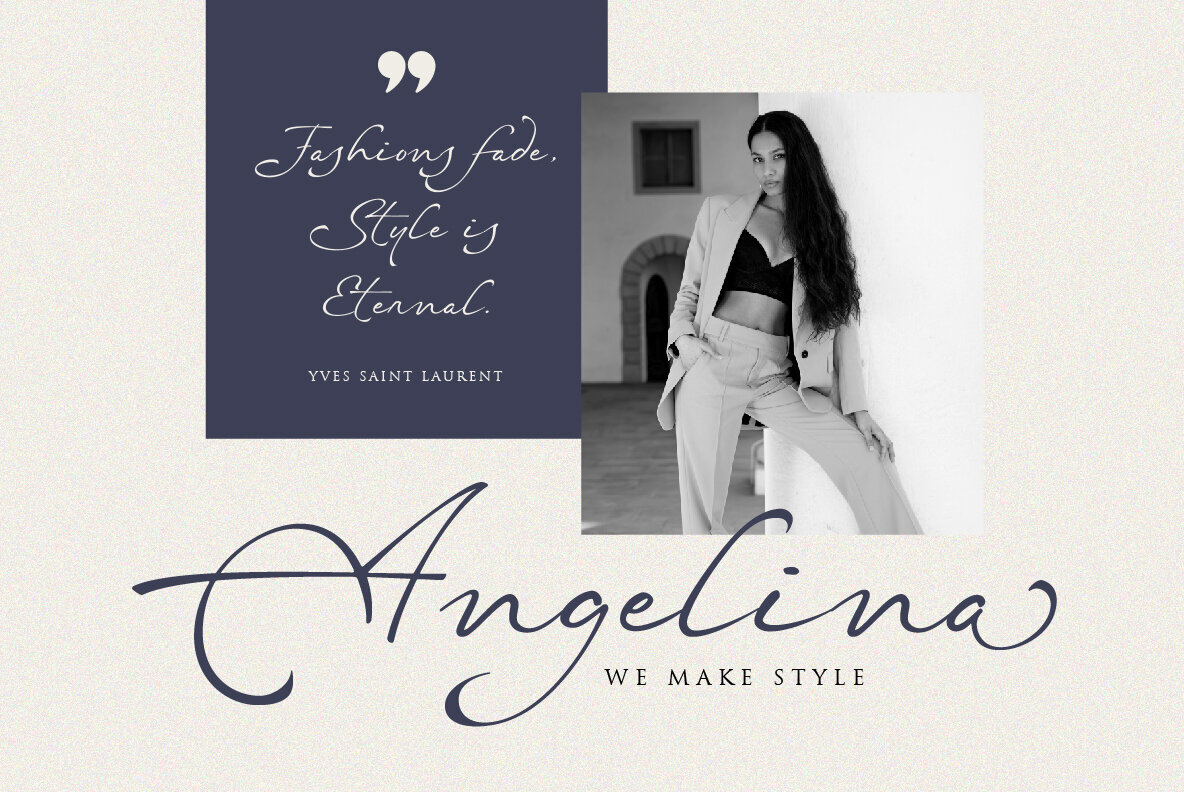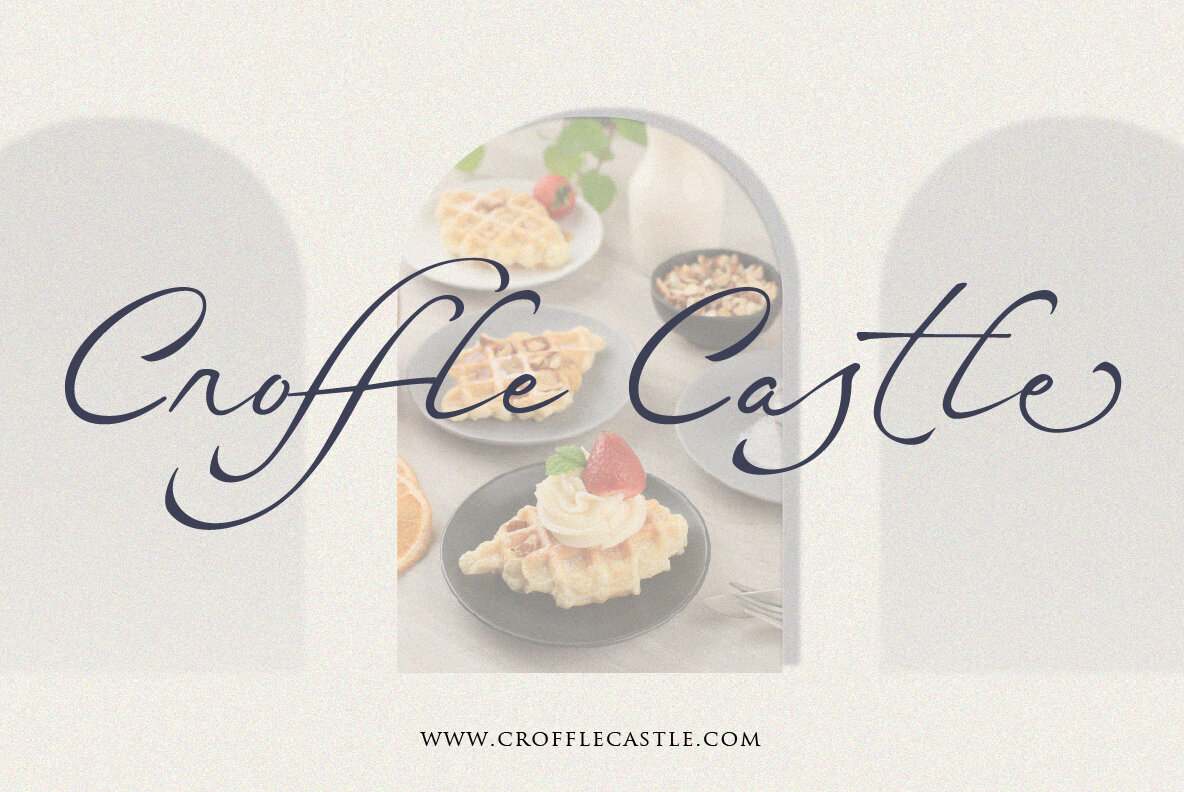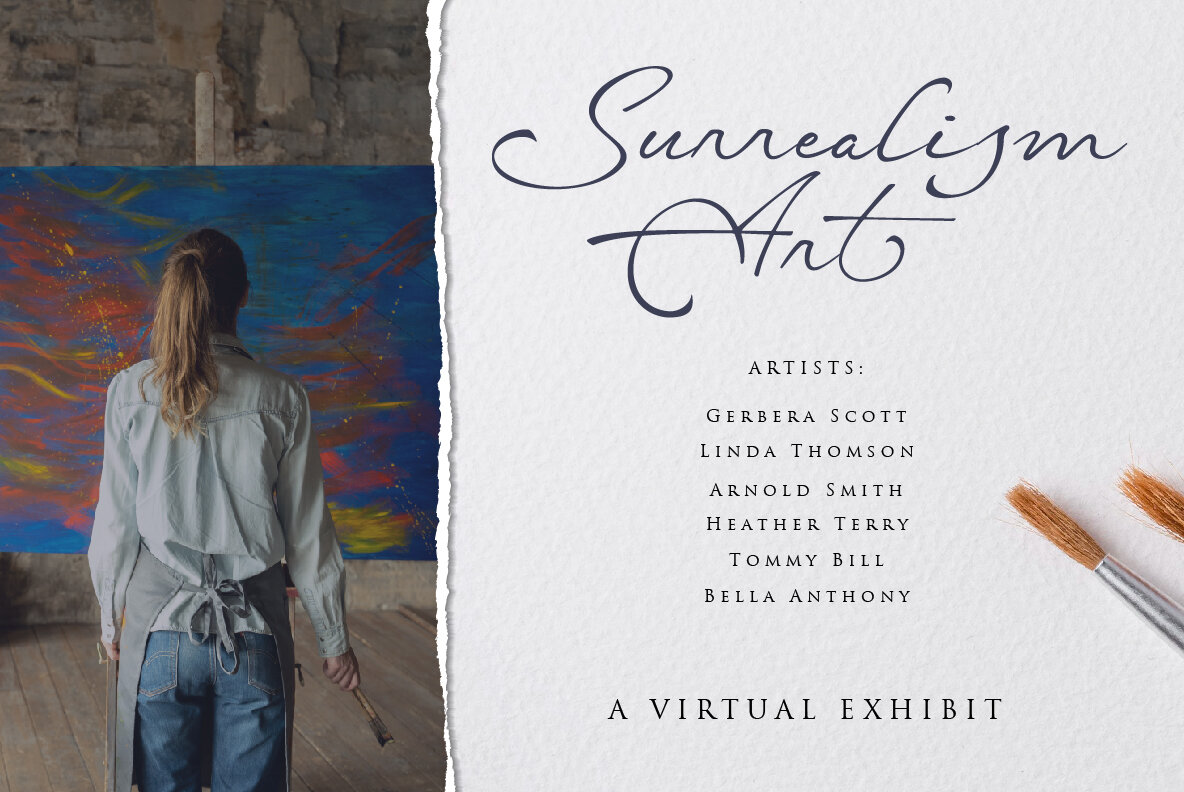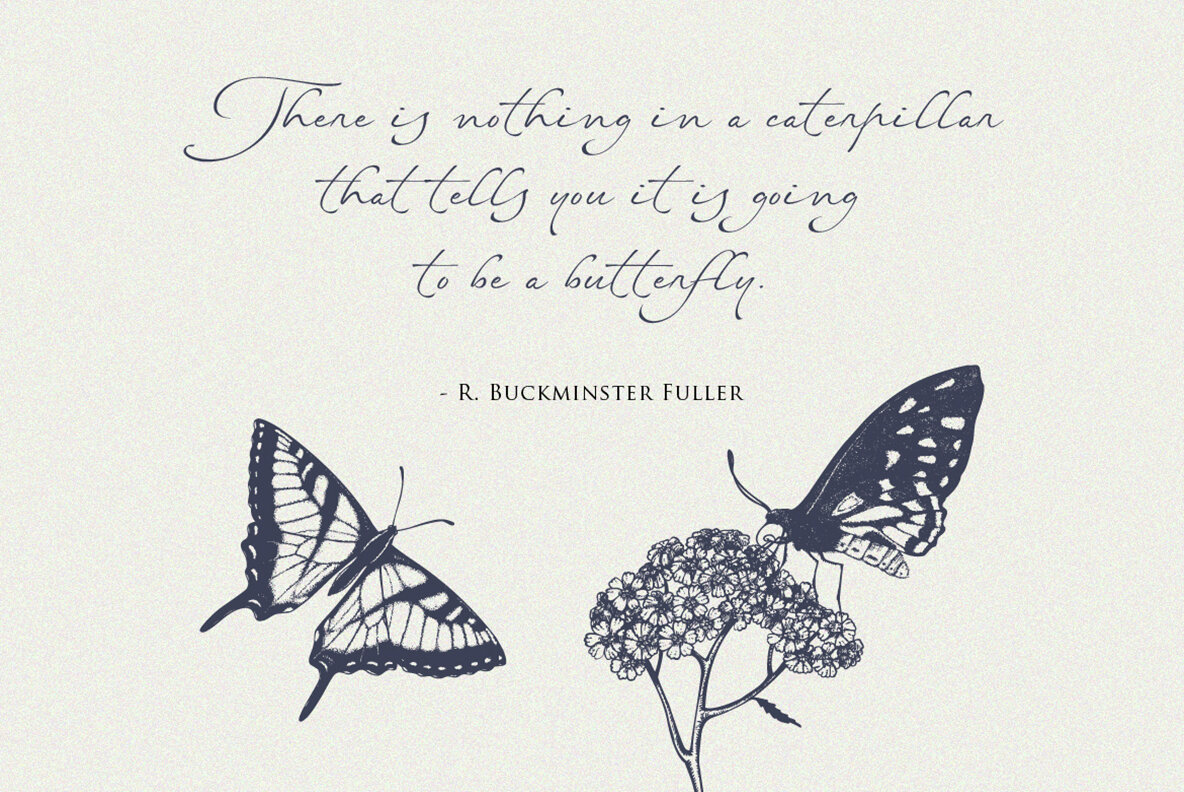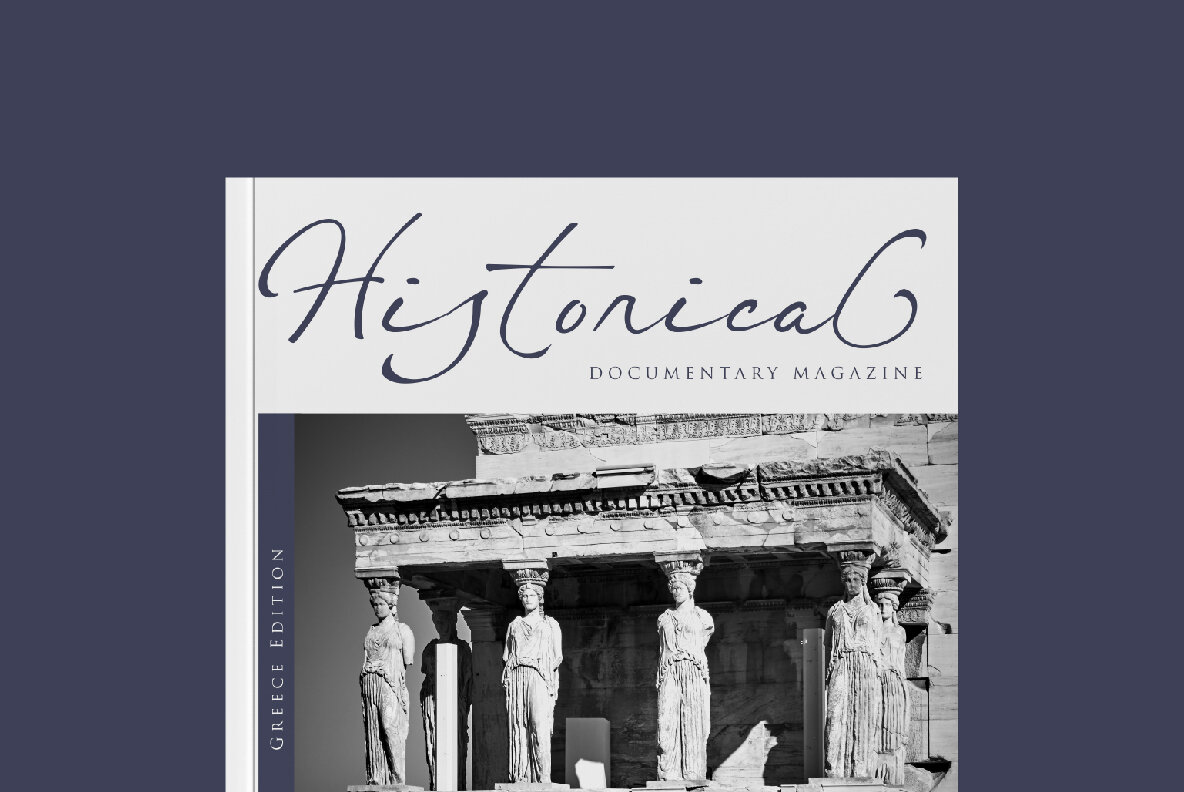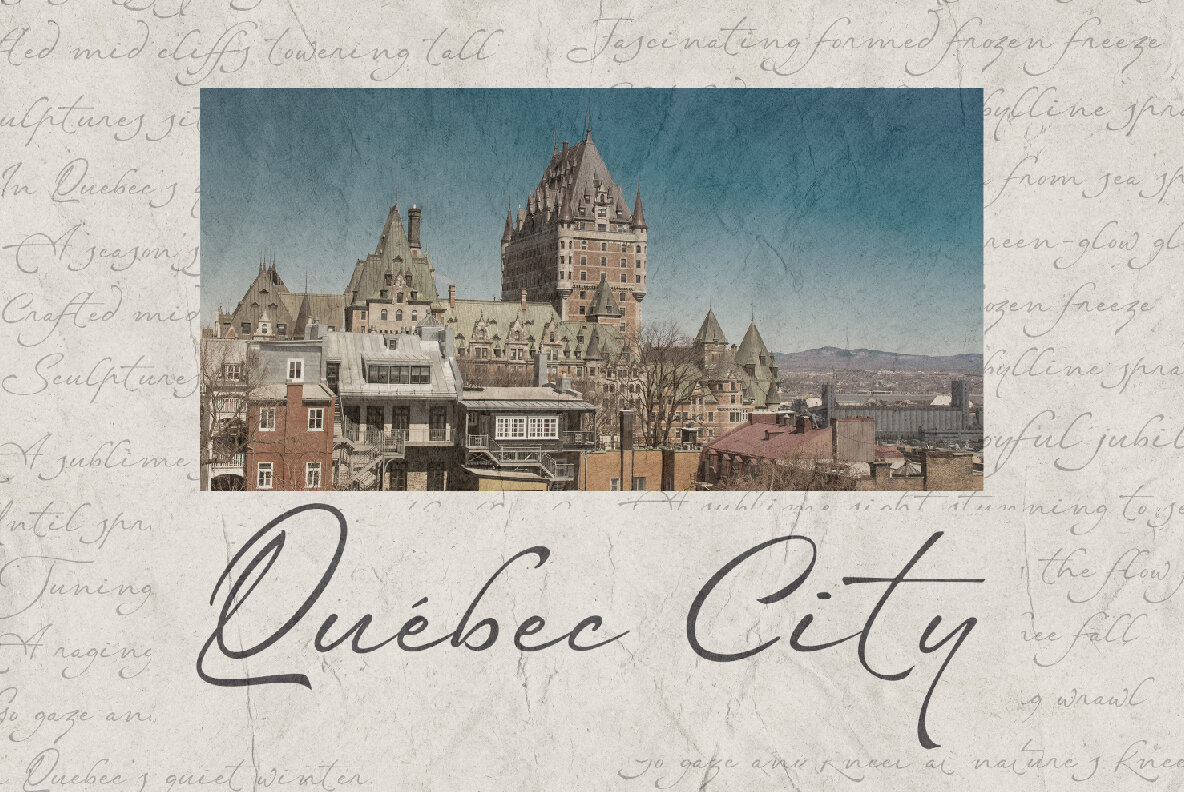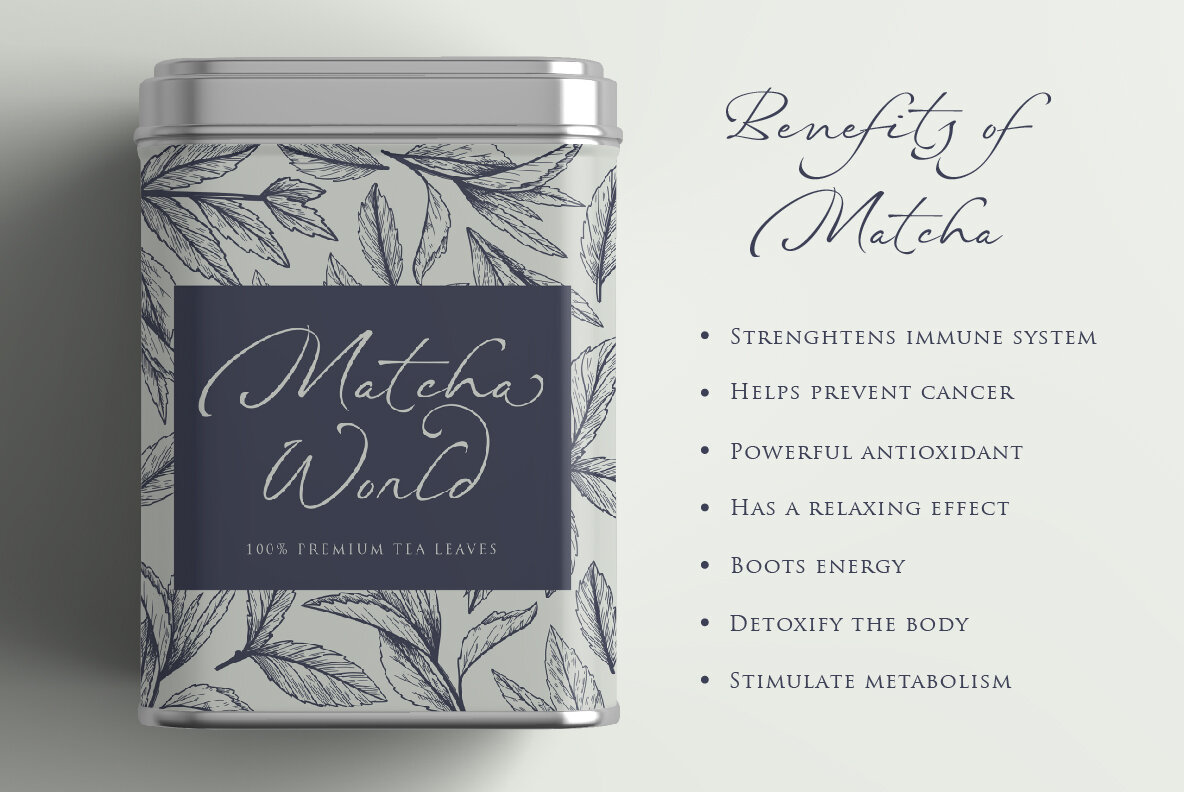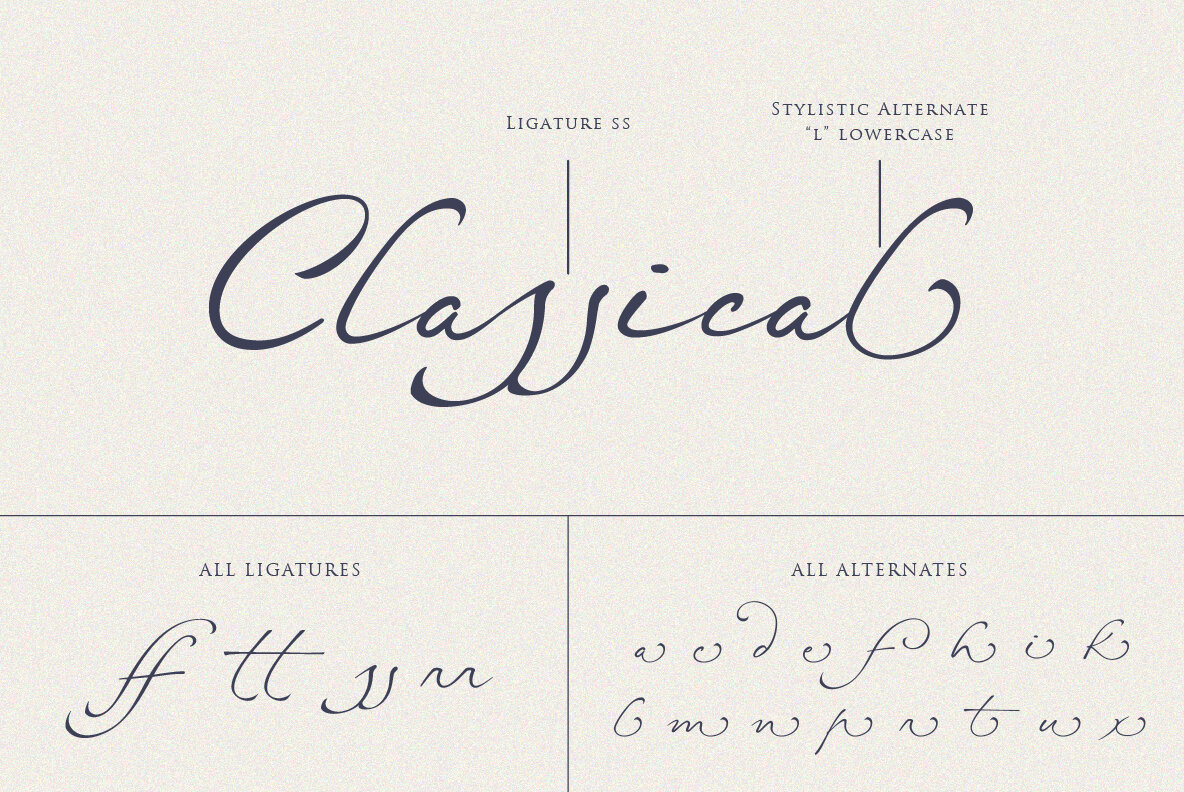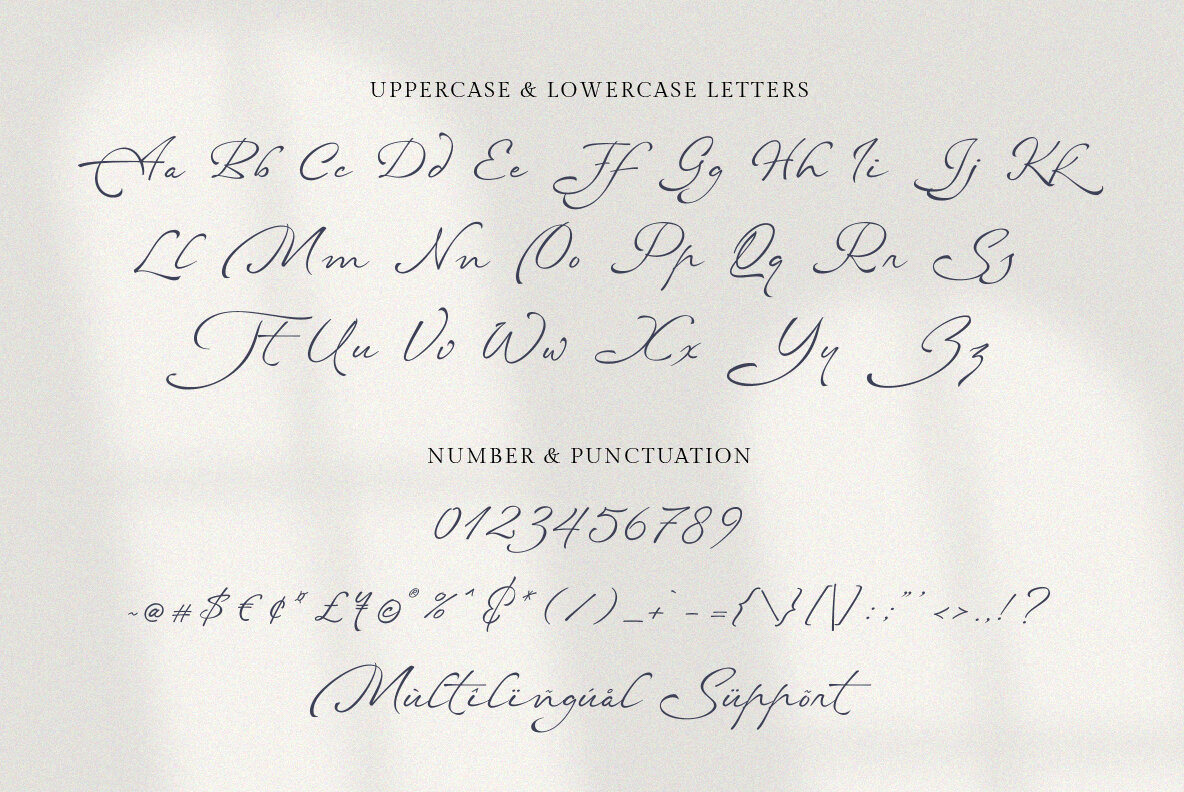
Netherfield Font
Netherfield Regular
Netherfield is classic script font that inspired by eighteen century manuscript. It has unique stem and form that show antique feels. Suitable for branding project, packaging, quotes, greeting card, and so on. You can get uppercase and lowercase letters, numeral and punctuation, lowercase alternates, and ligatures. Please look at preview pictures detaily.